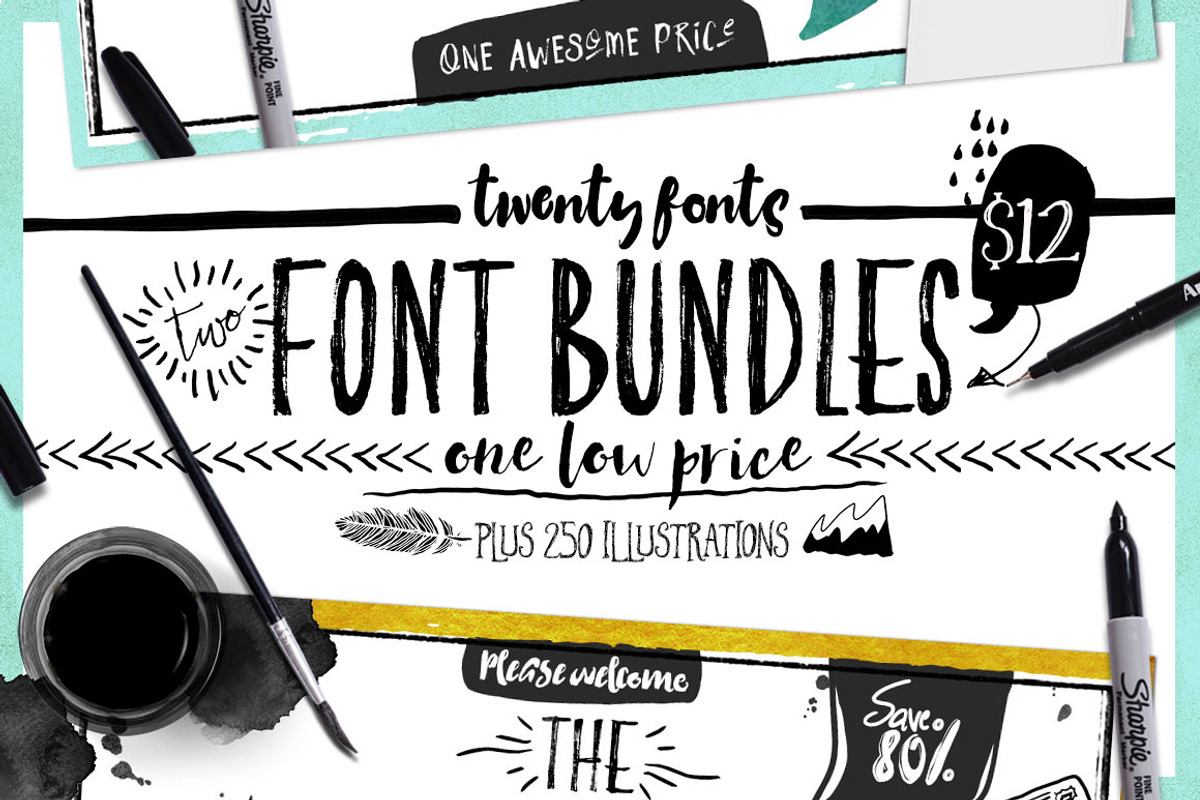
Bundle of Fonts 2 in 1 Free Download offers two unique typefaces in one convenient package — perfect for designers looking to expand their creative toolkit. This duo includes complementary styles that balance elegance and personality, making them ideal for branding, invitations, social media, packaging, and more.
Whether you’re working on a professional logo or a playful design, this versatile bundle provides flexibility and stylistic variety. Each font is crafted to work beautifully on its own or as a pair, giving your projects a polished and cohesive look. With Bundle of Fonts 2 in 1 Free Download, you can explore both fonts in personal use before committing to a commercial license.